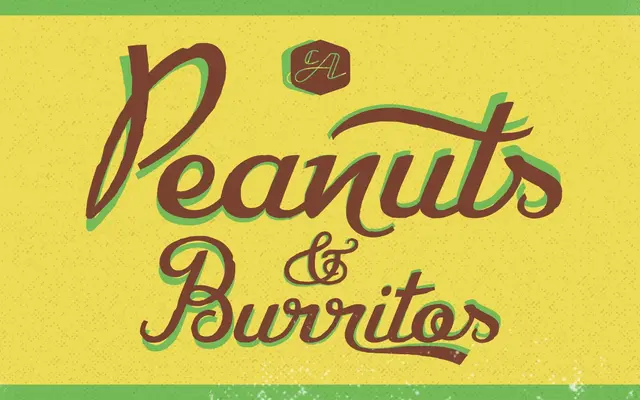
CA Recape
Cape Arcona · Thomas Schostok
A two-style vintage script family by Thomas Schostok, drawn from a selective remix of American 1950s lettering forms rather than any single historical source.
Rather than reviving one period typeface, Thomas Schostok pulled the most distinctive letter forms from 1950s American lettering and merged them into a single family. The Regular style carries a polished, hand-lettered quality, while the Raw variant simulates the look of poorly printed type for added texture and age. OpenType features include underlining swashes, stylistic and contextual alternates, discretionary ligatures and ornaments, making it well suited to logotypes, headlines and poster work.
Classified as Script by the foundry; drawn from American 1950s lettering traditions with a distressed variant, placing it firmly in the decorative vintage script category.